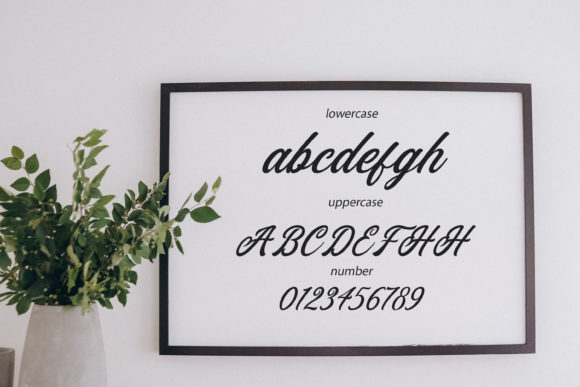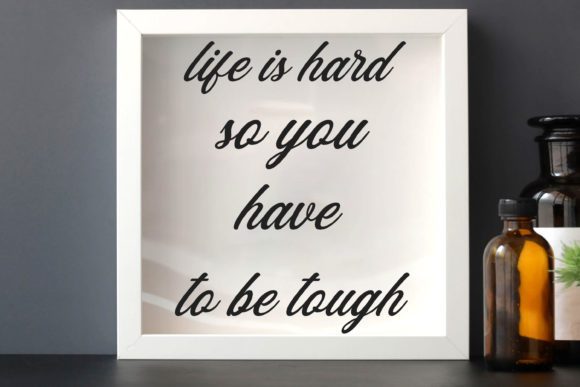
Castrina Font
db-ku.com - Script & Handwritten -- Castrina is an elegant and stylish script font. It is PUA encoded which means you can access all of the glyphs and swashes with ease! Add it confidently to your projects, and you will love the results.